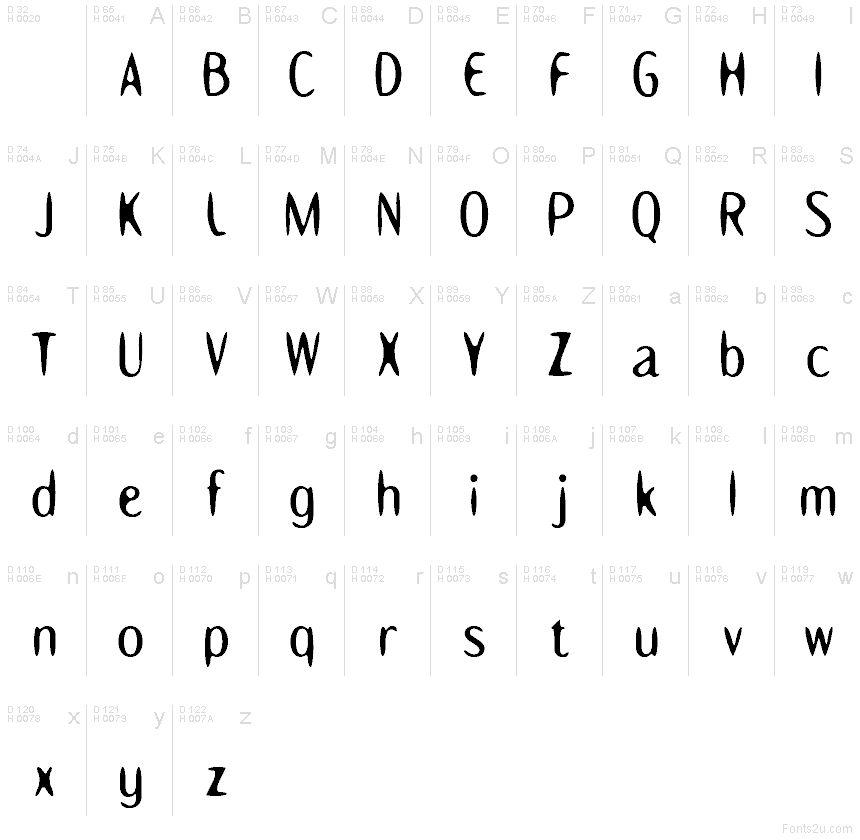
CSLiraneDrawn-Regular Demo
CS Lirane Drawn font by Craft Supply Co. is a free regular eroded display font. Built within the CS Lirane family, it stands out with chalky, hand-drawn edges and a loose, calligraphic sway that feels human—inky burrs, softened serifs, and gentle contrast give each letter a lived-in rhythm. It’s that rare mix of rustic grit and quiet elegance, delivering warmth without turning messy.
Using CS Lirane Drawn, headlines carry texture that reads clearly at a glance, making it a natural fit for artisan packaging, café menus, boutique branding, event posters, book covers, and craft market signage. The spacing breathes, so set it large to let the grain show, and pair this free font with a crisp, neutral sans to keep layouts grounded.